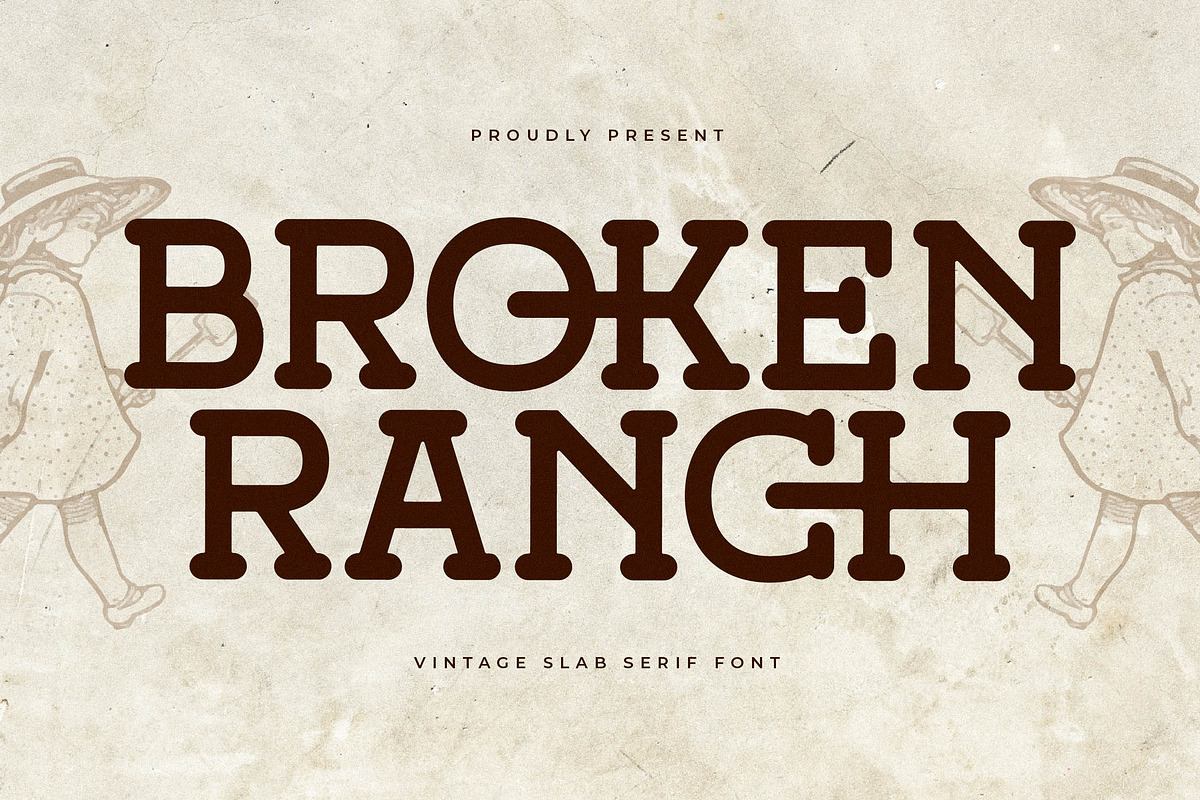
Introducing Broken Ranch Vintage Slab Serif Font Free Download, a modern and classic typeface with a unique style and contemporary look. Designed by Storytype Studio, this serif font is perfect for elegant and luxurious logos, book or movie title designs, fashion brands, magazines, clothing, lettering, quotes, and much more.